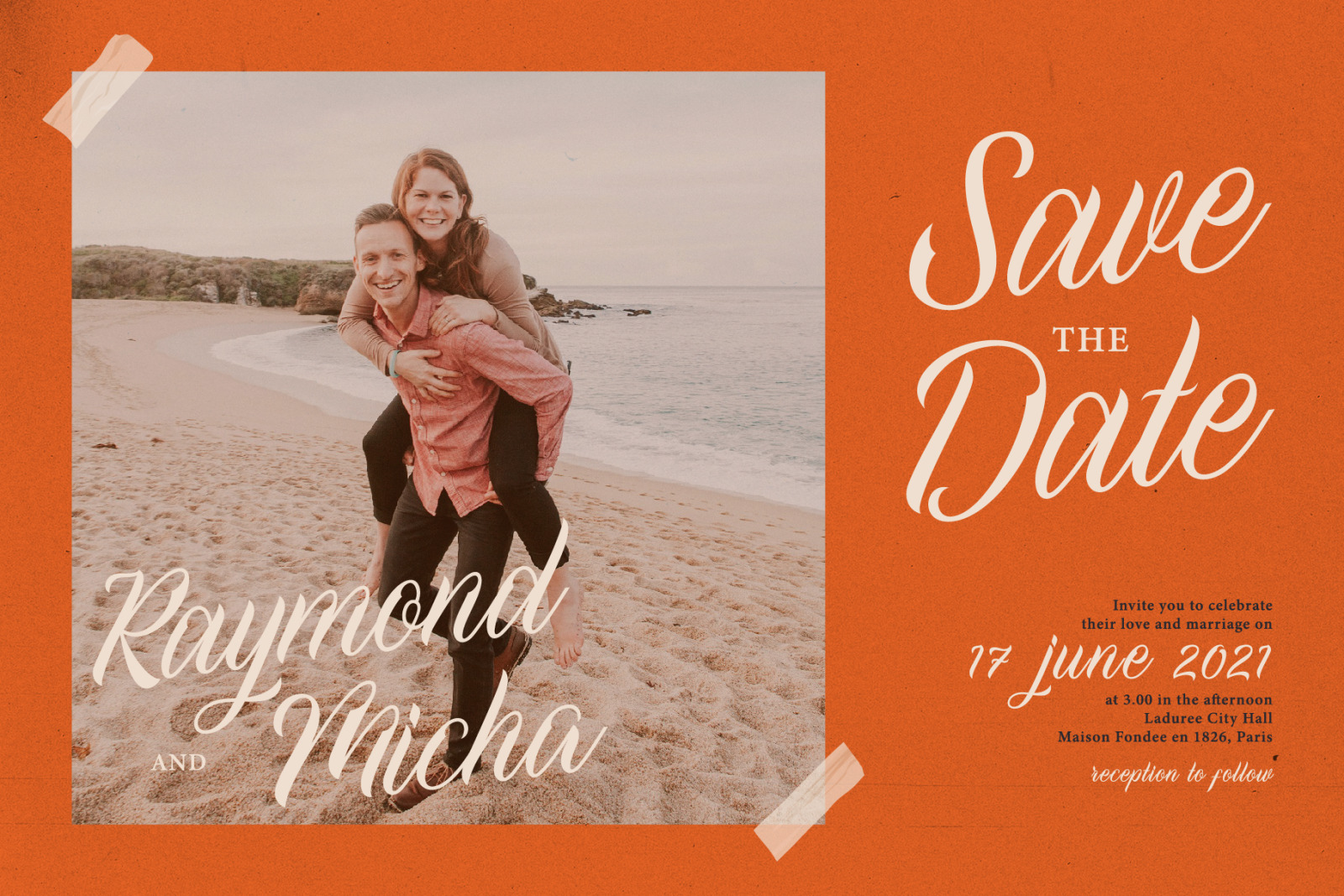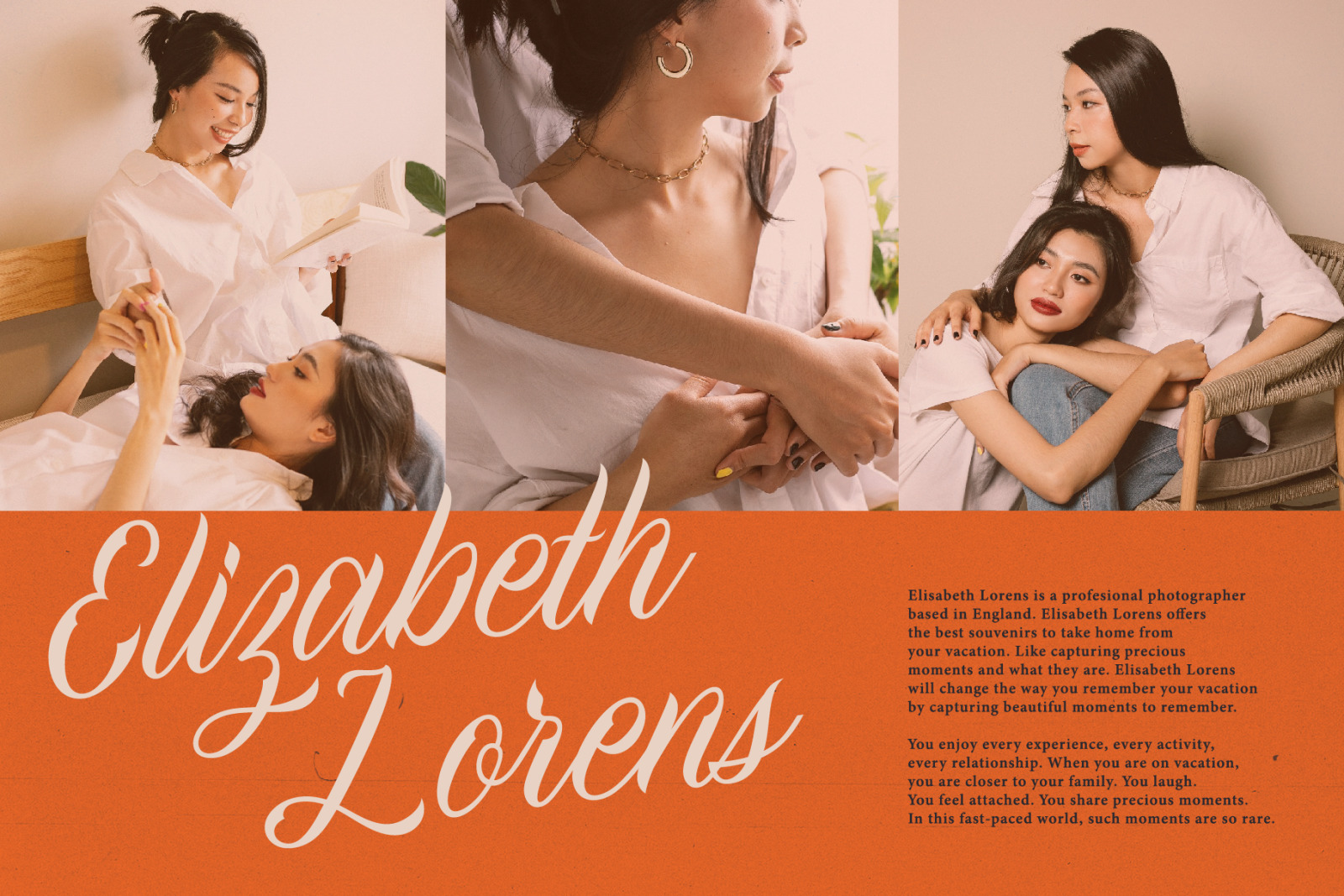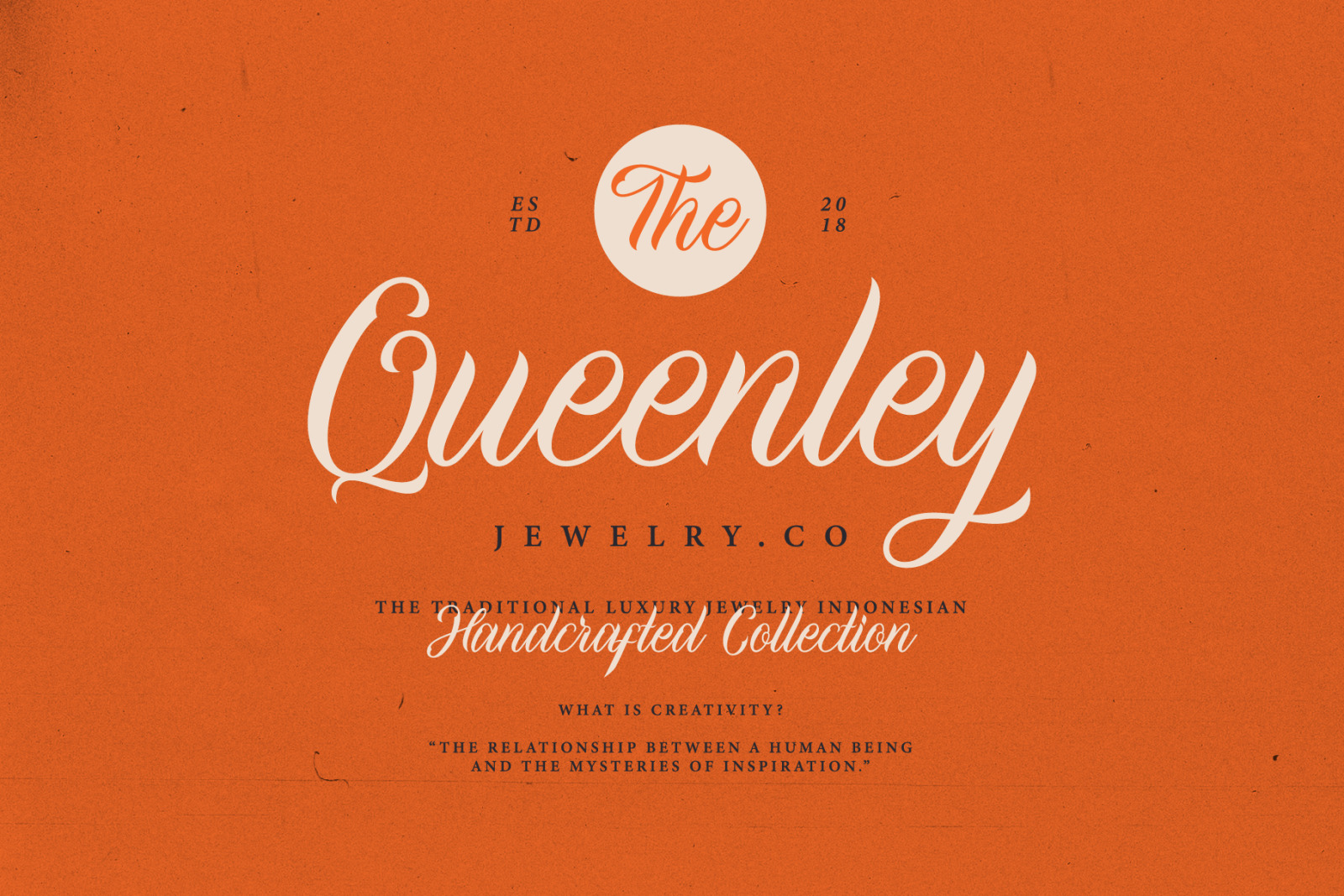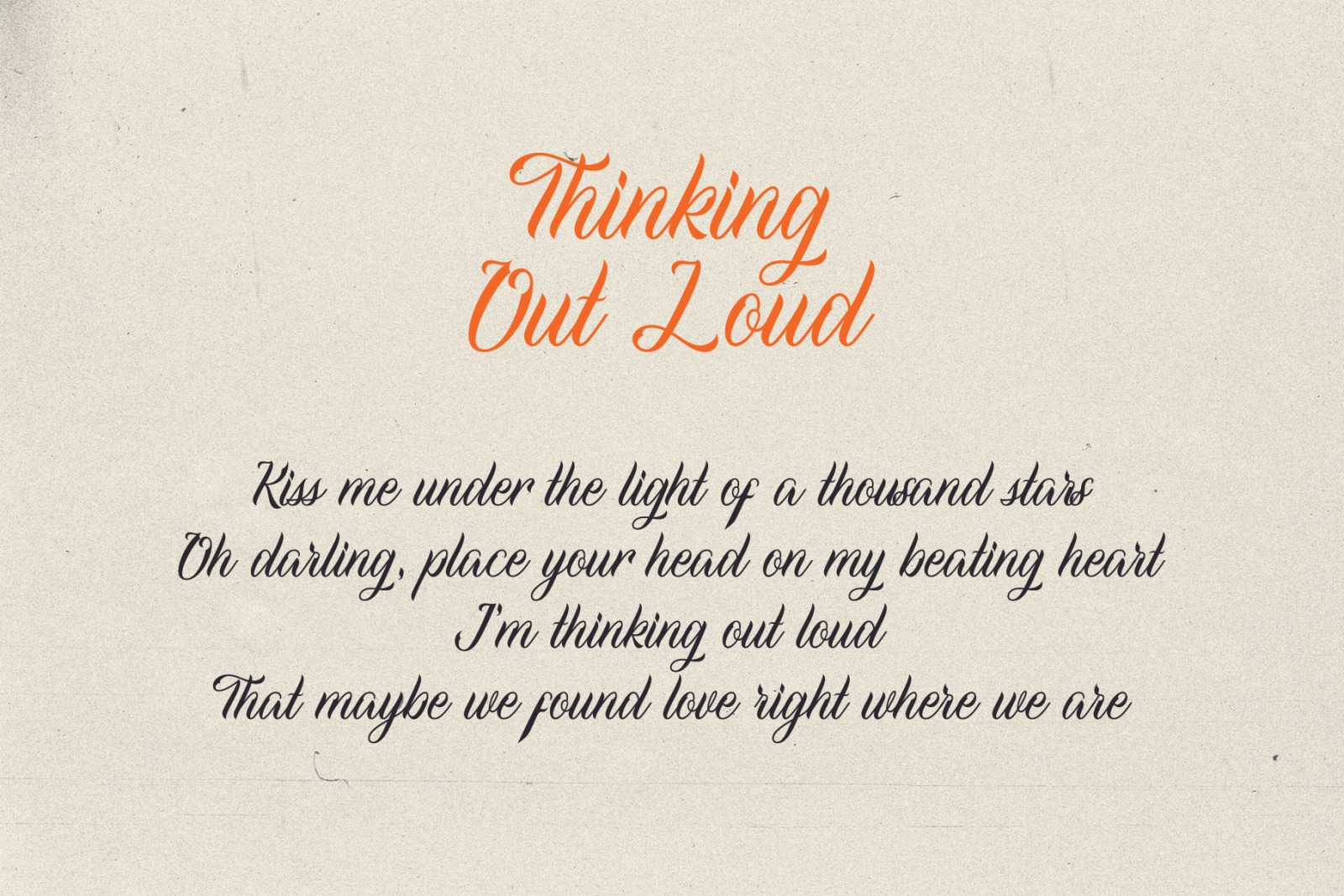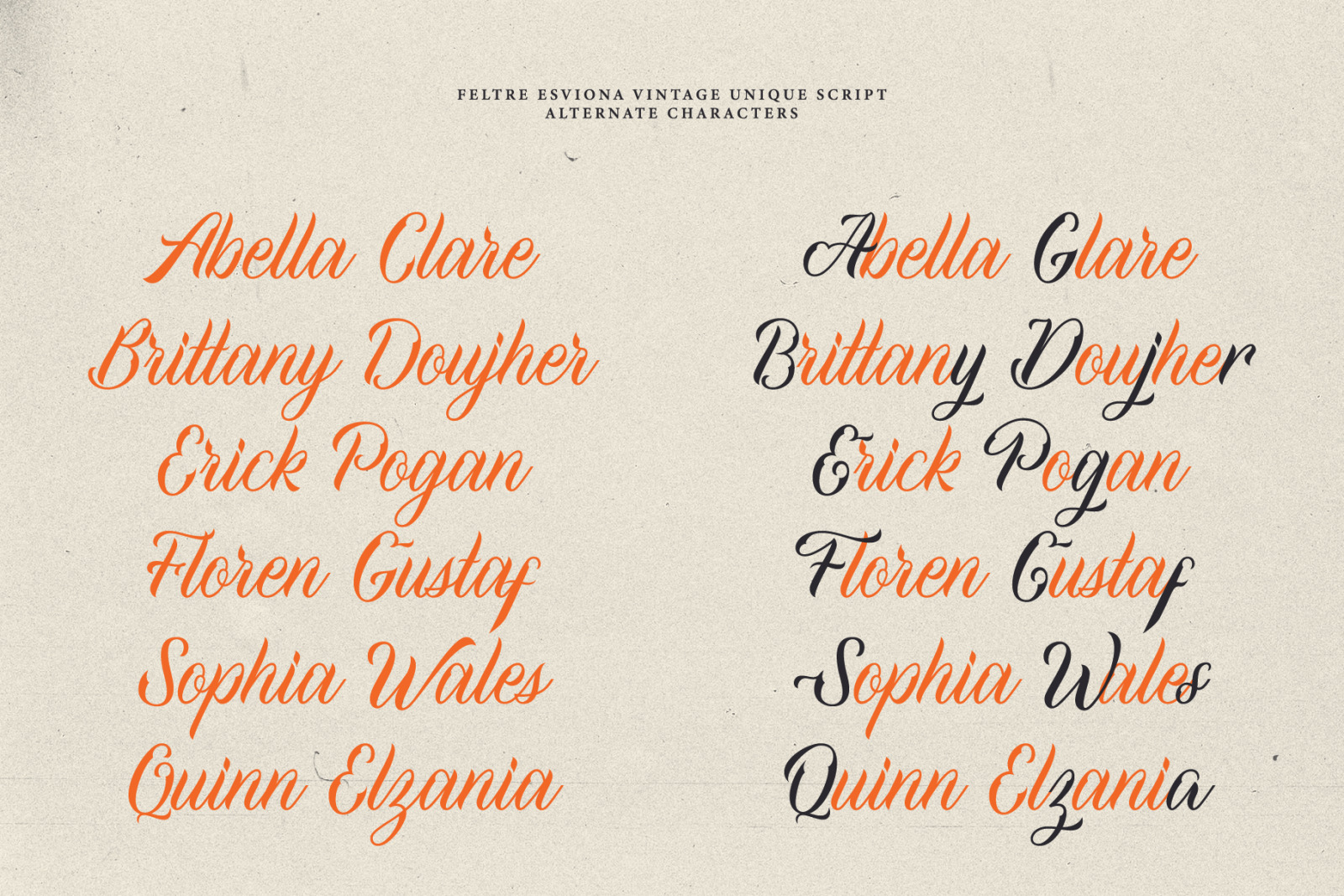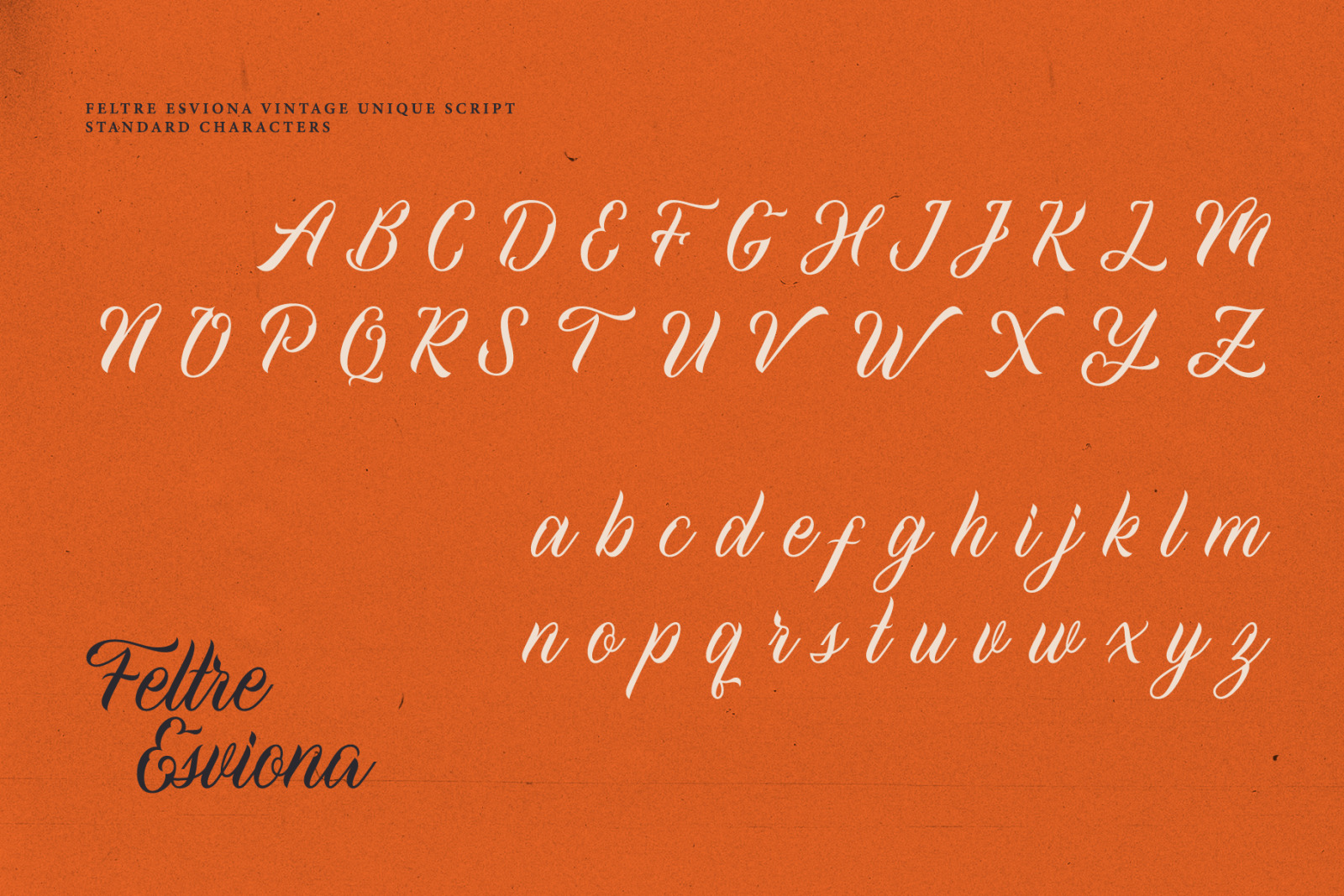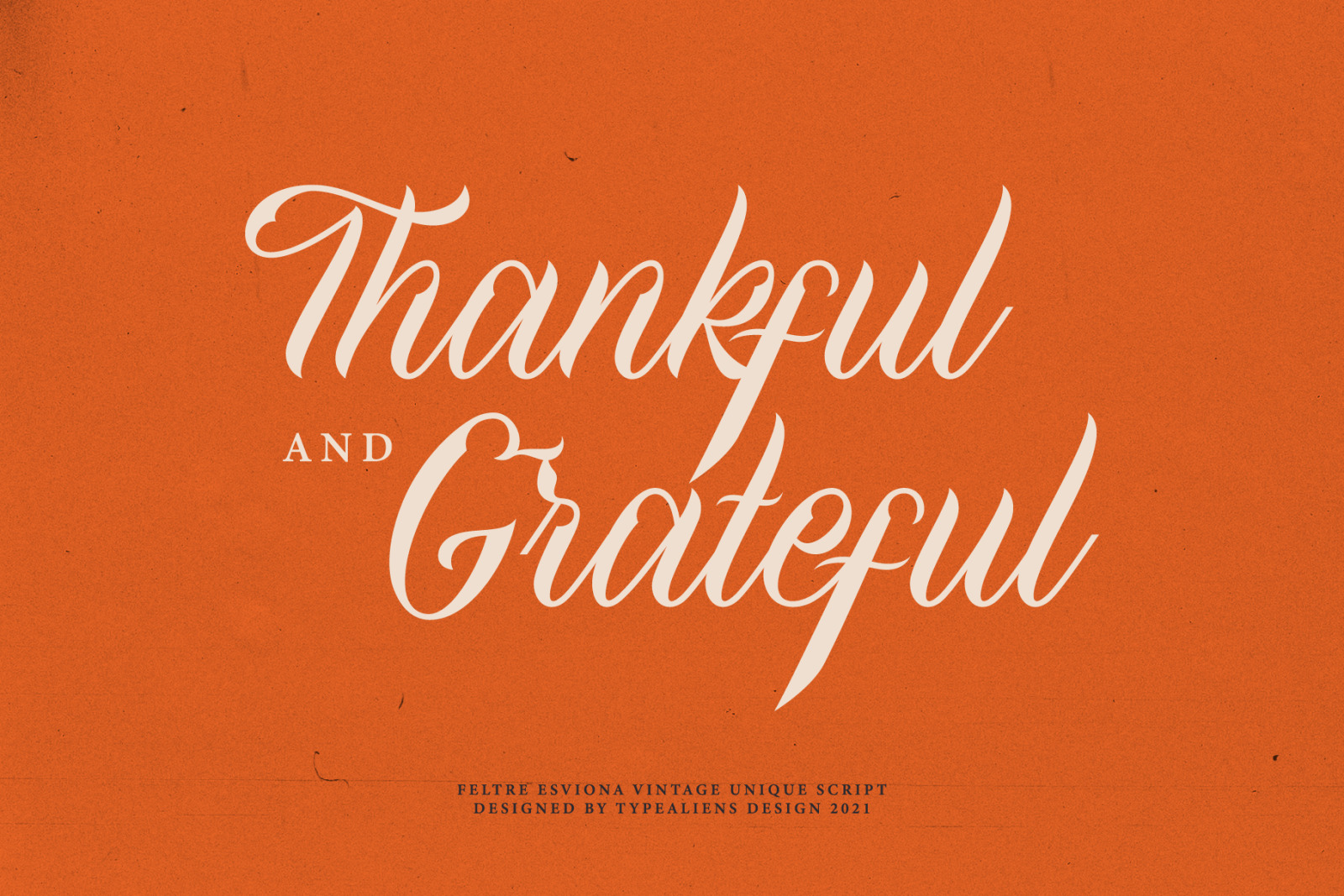
Feltre Esviona Font
FELTRE ESVIONA is a beautiful script font with a unique stroke base shape. It is suitable for modern designs such as branding and social media, designs for wedding purposes.